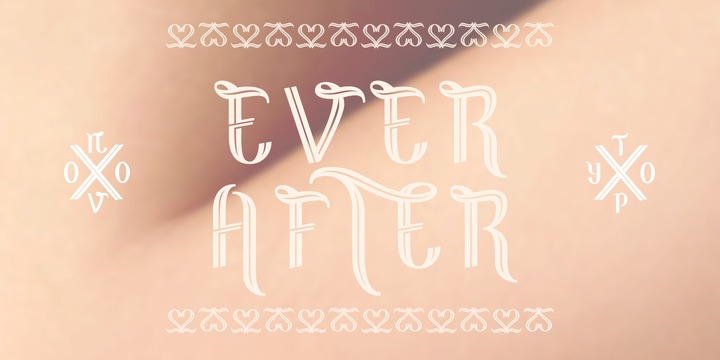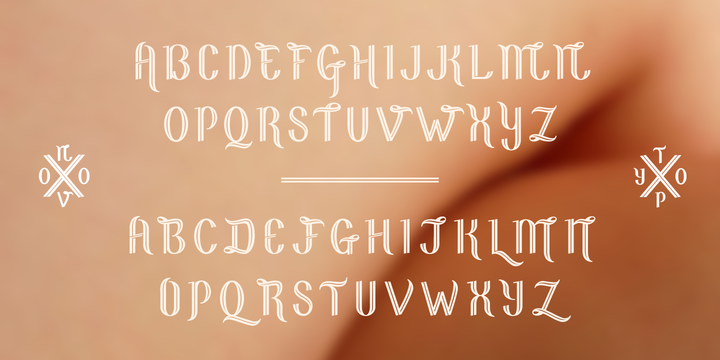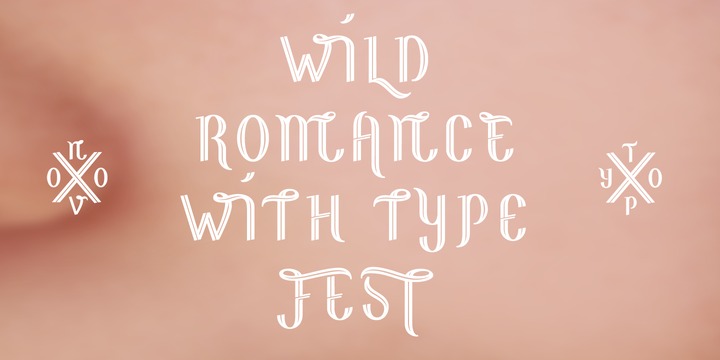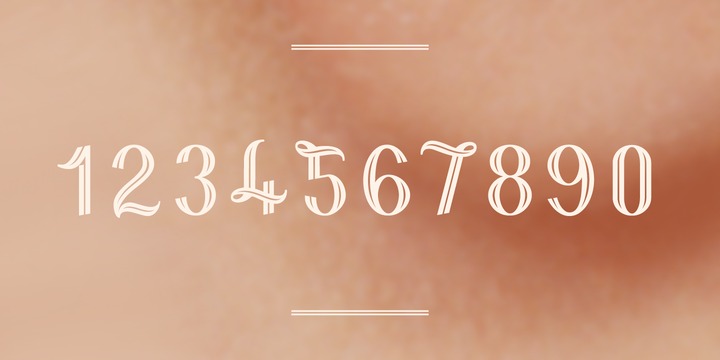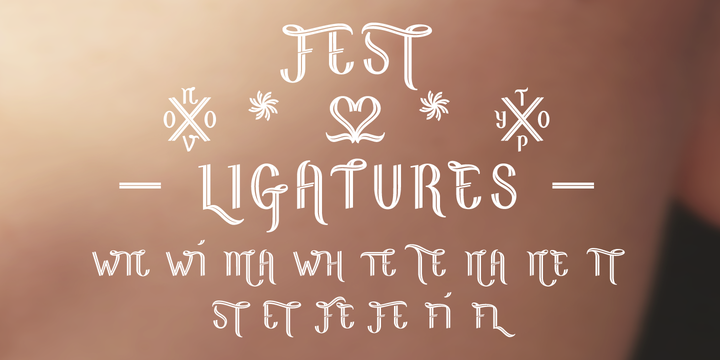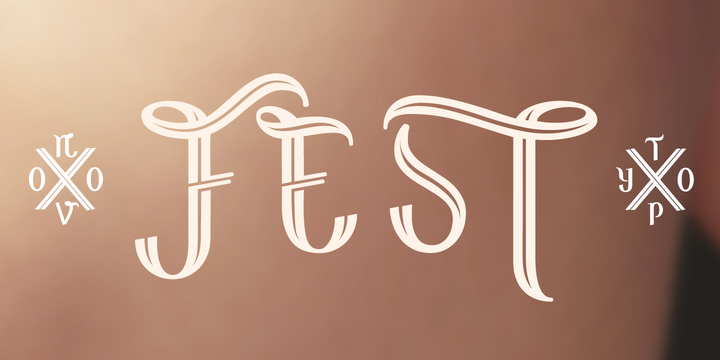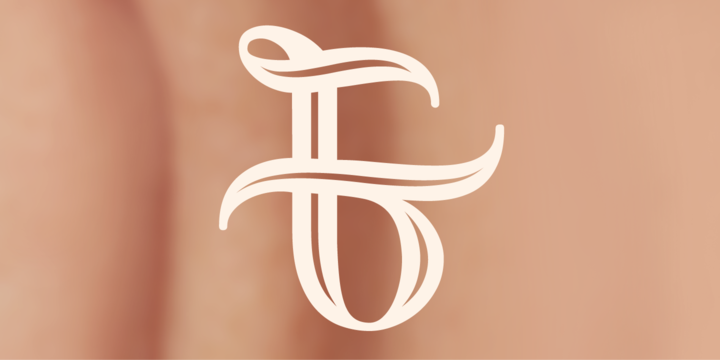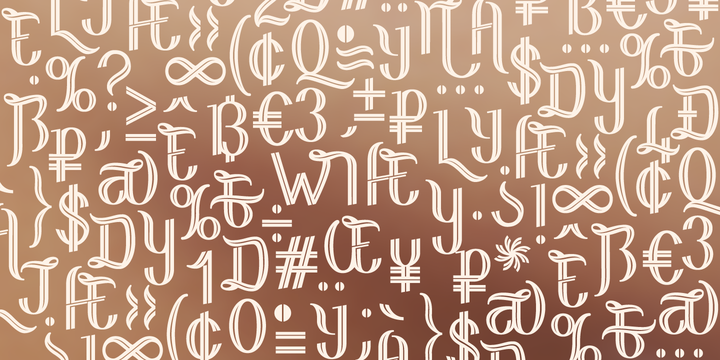
NT Fest Font
Fest is a highly detailed, ornamental unicase typeface for display use. Designed by Novo Typo – (typo)graphic designers from Amsterdam – The Netherlands.
Fest is perfect for designing sophisticated logos, fashionable headings or other beautiful display typography. The glyph set of Fest contains a lot of extra elegant glyphs, swooshes and ligatures.
• Designers: Mark van Wageningen